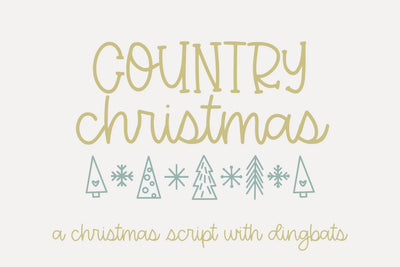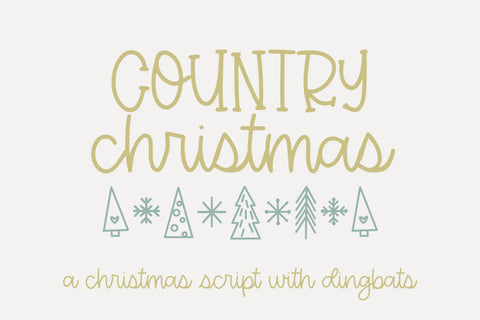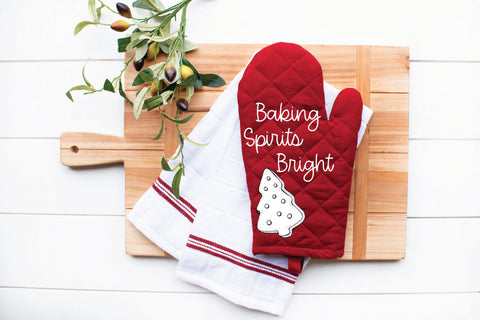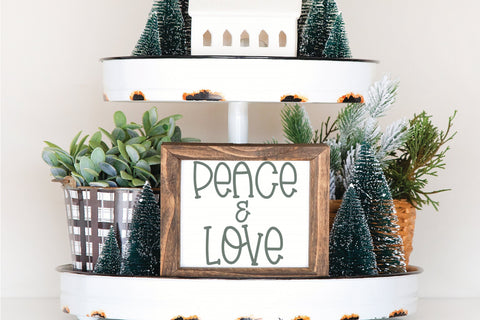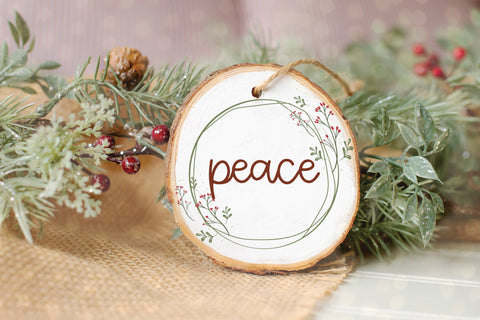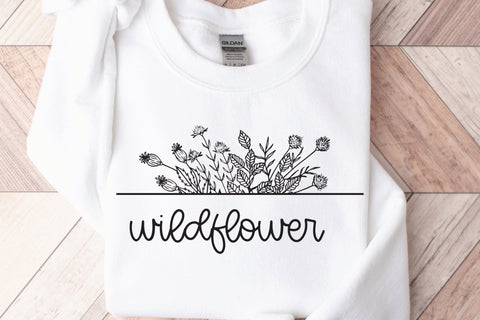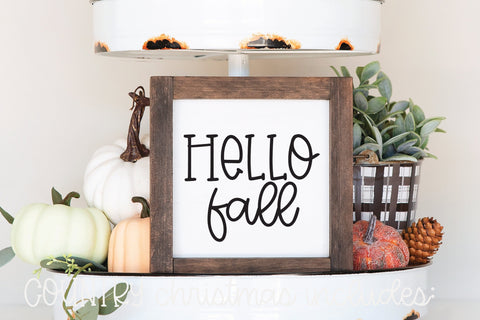
Country Christmas, Cute Handwritten Font with Dingbats
Introducing Country Christmas, our adorable handwritten script font with Christmas dingbats, perfect for all your creative projects! Whether you're a Cricut enthusiast or simply looking for a charming cursive font, this handwritten gem is exactly what you need. With its elegant curves and smooth strokes, our cute script font brings a delightful touch to invitations, greeting cards, and personalized crafts. Crafted specifically for Cricut users, this font is perfect for your Cricut font SVG designs, ensuring seamless compatibility with your cutting machine. Transform your designs into stunning works of art with our versatile cute script font, the ultimate choice for anyone seeking a captivating and expressive typeface for their projects.